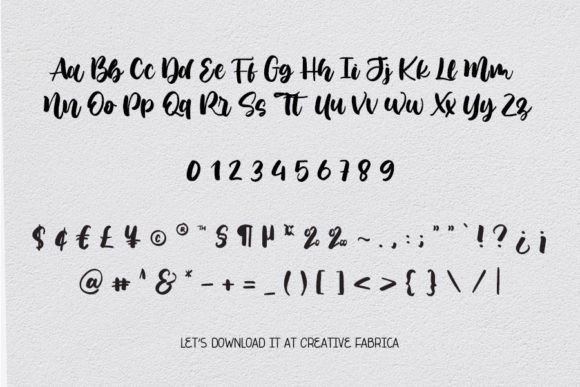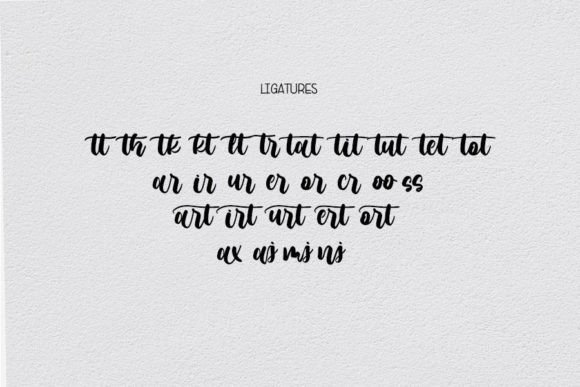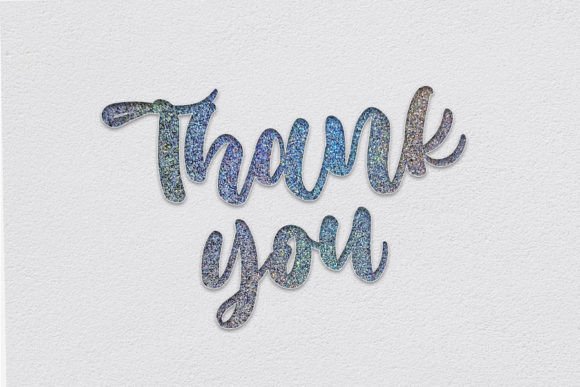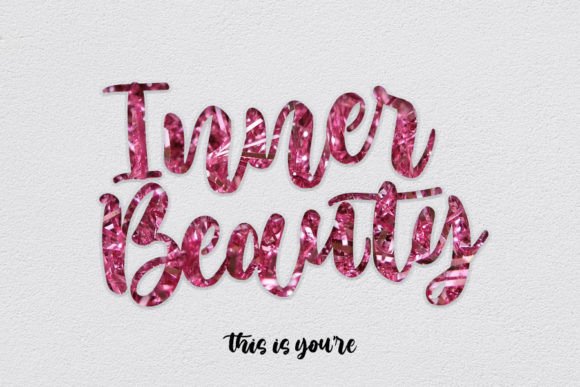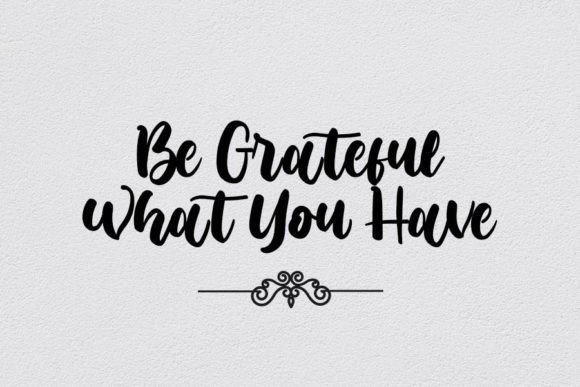
Artsy Font: Elevate Your Designs with the Latest Style Letters
Are you a designer or crafter looking for a unique and creative way to add a personal touch to your projects? Look no further than artsy fonts! Artsy fonts, also known as artsy letters or handwritten fonts, are a type of typography that mimics the look and feel of handwriting. In this article, we’ll explore the world of artsy fonts, their benefits, and how you can use them to elevate your designs.
What are Artsy Fonts?
Artsy fonts are a type of digital font that is designed to resemble handwriting. They are often characterized by their unique, irregular, and expressive letterforms, which give them a personal and artistic feel. Artsy fonts can range from simple and elegant to bold and playful, making them suitable for a wide range of design projects.
The Benefits of Using Artsy Fonts
Artsy fonts offer several benefits for designers and crafters. Here are a few reasons why you should consider using artsy fonts in your next project:
- Unique and creative: Artsy fonts offer a unique and creative way to add a personal touch to your designs. They can help your project stand out from the crowd and give it a distinctive look and feel.
- Flexibility: Artsy fonts can be used for a wide range of design projects, from wall displays and wedding invitations to social media posts and product packaging.
- Emotional connection: Handwritten fonts, including artsy fonts, can create an emotional connection with your audience. They can convey a sense of warmth, friendliness, and approachability.
The Latest Style Letters: Perfect for Various Design Projects
The latest style letters in artsy fonts are perfect for various design projects, including:
- Wall displays: Artsy fonts can add a personal touch to your wall displays, making them perfect for home decor, exhibitions, and events.
- Wedding invitations: Artsy fonts can add a romantic and elegant touch to your wedding invitations, making them perfect for couples who want to make a statement.
- Social media post logos: Artsy fonts can help your social media posts stand out from the crowd, making them perfect for businesses and individuals who want to build their brand.
- Advertisements: Artsy fonts can add a creative and eye-catching touch to your advertisements, making them perfect for businesses who want to grab attention.
- Product packaging: Artsy fonts can add a personal touch to your product packaging, making them perfect for businesses who want to create a memorable brand experience.
- Product designs: Artsy fonts can be used to create unique and creative product designs, making them perfect for crafters and makers.
- Labels: Artsy fonts can add a personal touch to your labels, making them perfect for businesses and individuals who want to create a distinctive brand identity.
- Photography: Artsy fonts can be used to create beautiful watermarks, making them perfect for photographers who want to protect their work.
- Invitations: Artsy fonts can add a personal touch to your invitations, making them perfect for parties, events, and special occasions.
- Stationery: Artsy fonts can be used to create unique and creative stationery, making them perfect for individuals who want to add a personal touch to their correspondence.
Tips for Using Artsy Fonts
Here are a few tips for using artsy fonts in your design projects:
- Choose a font that fits your brand: With so many artsy fonts to choose from, it’s essential to select a font that fits your brand’s personality and style.
- Use them sparingly: While artsy fonts can add a creative touch to your designs, it’s essential to use them sparingly to avoid overwhelming your audience.
- Experiment with different styles: Don’t be afraid to experiment with different artsy font styles to find the one that works best for your project.
| Font Name | Artsy Font |
| Author | Creassion Studio |
Artsy fonts are a great way to add a personal touch to your design projects. With their unique and creative letterforms, they can help your project stand out from the crowd and give it a distinctive look and feel. Whether you’re a designer or crafter, artsy fonts are perfect for various design projects, from wall displays and wedding invitations to social media posts and product packaging. So why not give artsy fonts a try and see how they can elevate your designs?